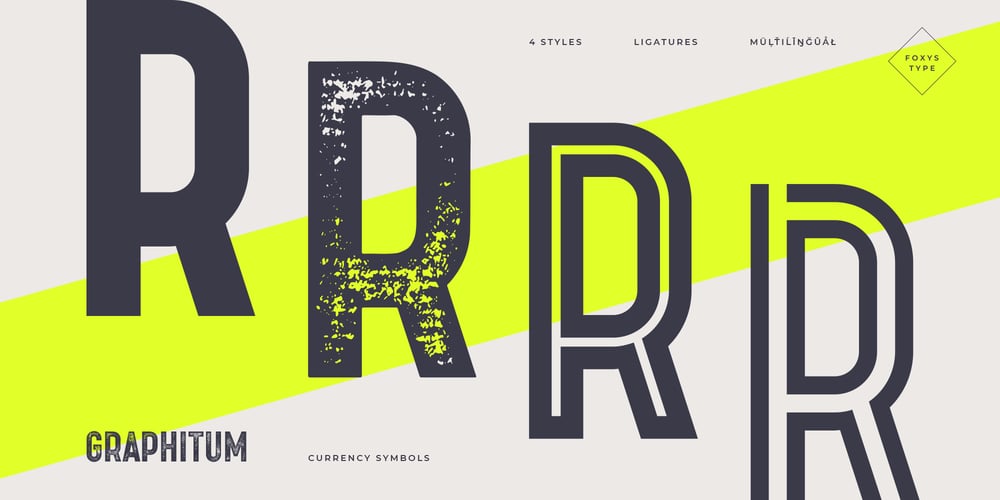
FT Graphitum Font Family was designed by Roland Hüse and published by Foxys Forest Foundry. FT Graphitum contains 4 styles and family package options. This is a powerful graphic rough sans-serif typeface with four different styles. Two linear, one with an aged texture and one basic, for your experiments. It makes a bold impression, feels like a strong simple typeface. Looks great in short inscriptions, headlines, posters.